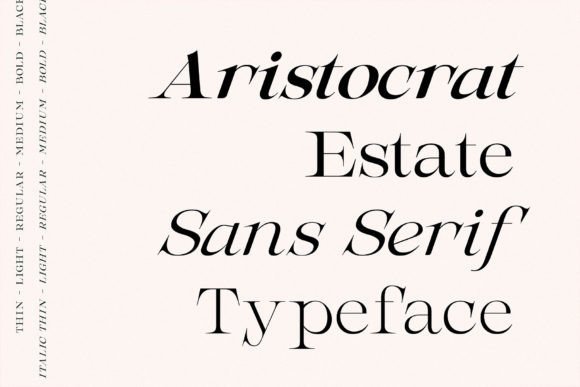
Introduction to Aristocrat Estate Font
Introducing Aristocrat Estate, an opulent and exquisite serif typeface that epitomizes sophistication and luxury.
With a range of 12 meticulously crafted weights, this font exudes an air of timeless elegance, making it the perfect choice for projects that demand an upscale aesthetic The meticulously designed serifs and graceful letterforms evoke a sense of refinement and class, reminiscent of the grandeur of a stately estate.